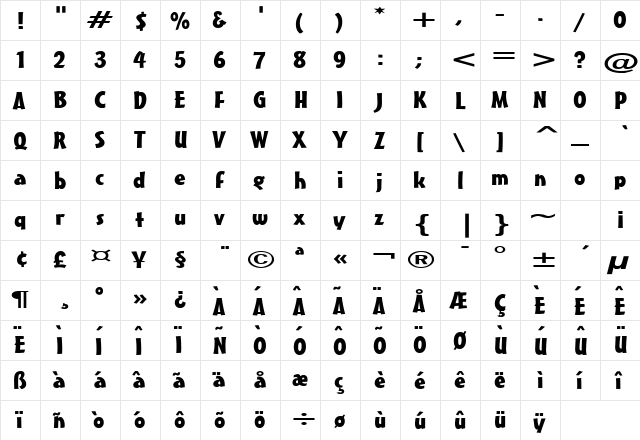
Massey Extended Normal
Design Context for Massey Extended Typeface
Massey Extended takes a measured approach to typography — its balanced proportions and neutral character make it a reliable workhorse for both digital and print work.